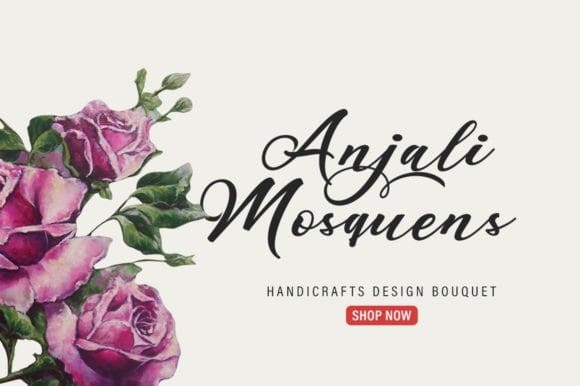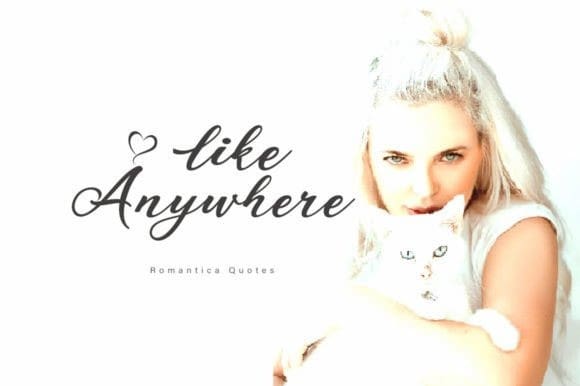
Maulie Script Font
Maulie Script Font, For those of you who need a touch of elegance combining a classic style with modern calligraphy for your design, this font is made for you! This font is PUA encoded, which means you can access all of the glyphs and swashes with ease!